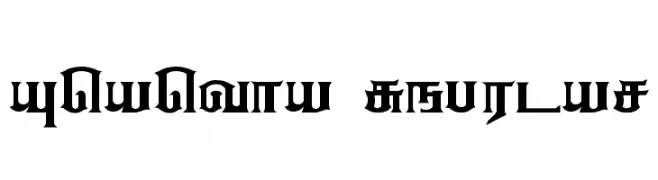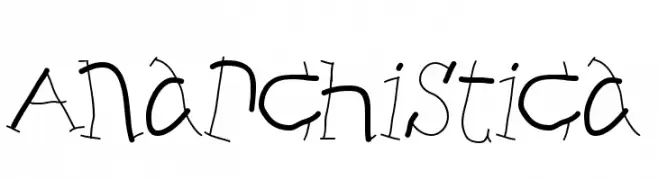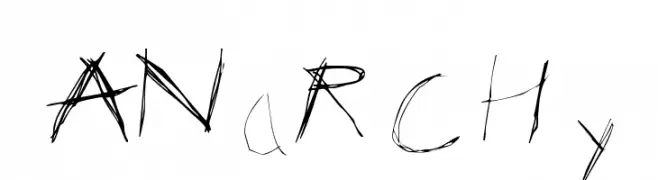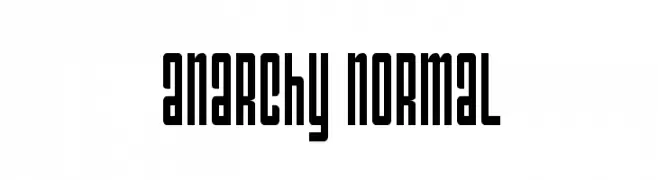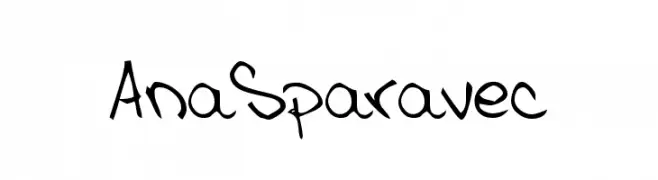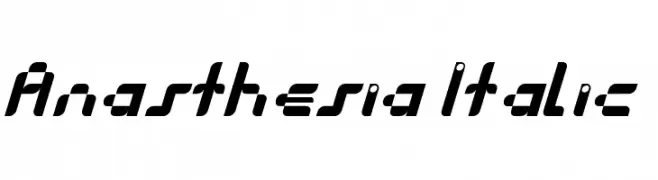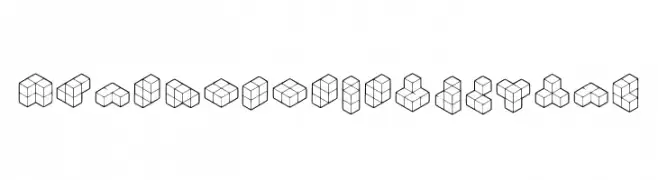
An elegant script font with fluid, cursive strokes and a classic charm.
A stylish and elegant handwritten script font with fluid, cursive letterforms.
A rebellious, hand-drawn font with jagged, dynamic strokes.
A bold, graffiti-inspired font with sharp, angular strokes and a dynamic, hand-drawn style.
A chaotic, abstract font with fragmented and distorted letterforms.
A chaotic and abstract font with bold, fragmented letterforms.
A dynamic, rebellious font with irregular, jagged strokes and a hand-drawn feel.
A playful, hand-drawn font with irregular, dynamic letterforms.
A bold, chaotic, and abstract decorative font with unique, fragmented letterforms.
A decorative and artistic font with abstract, square-enclosed characters.
A raw, edgy, hand-drawn style with jagged, uneven strokes.
A bold, distressed font with a grunge, rebellious style.
A bold, brushstroke font with a rebellious and chaotic style.
A bold, jagged font with a rebellious, energetic vibe.
A rough, hand-drawn font with an edgy, rebellious style.
A bold, expressive script font with high contrast and fluid letterforms.
A vintage, typewriter-inspired font with a distressed, nostalgic look.
A dynamic and expressive handwritten script font.
A playful, handwritten script font with interconnected characters.
An elegant script font with flowing, cursive letters and intricate swashes.
A cursive, handwritten-style font with a flowing and elegant appearance.
A delicate, cursive handwritten font with flowing lines and elegant strokes.
A playful, casual handwritten font with fluid strokes and a friendly appearance.
A futuristic, geometric font with bold, rounded shapes and a digital aesthetic.
A modern, italicized font with bold, angular lines and a futuristic style.
A fluid and elegant script font with dynamic, cursive letterforms.
A geometric, isometric cube font with a bold, three-dimensional style.